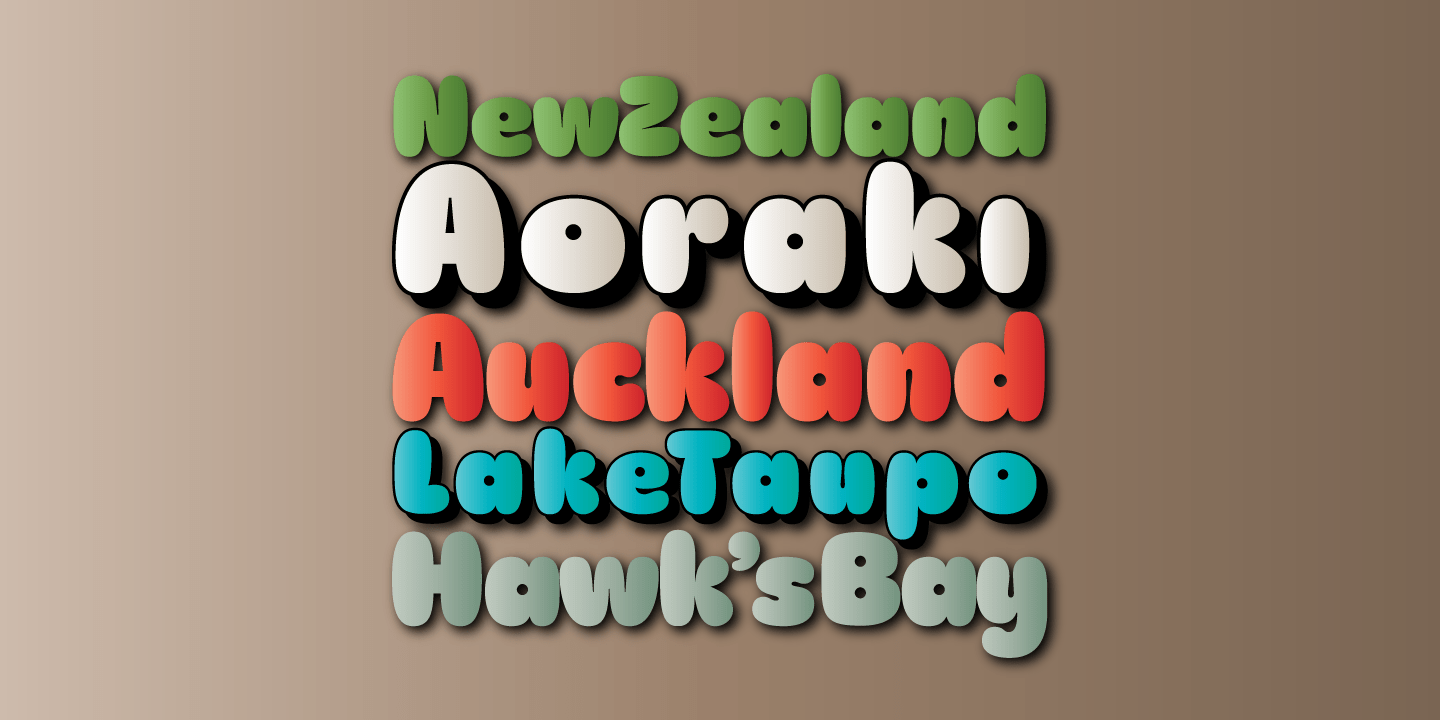
Churchward Marianna Shadow
Font Style by BluHead Studio
Churchward Marianna Shadow was designed by the late Joseph Churchward. The round, bulbous letter forms take on individual personalities of their own. This font can't wait to express humor, spunk and just plain bold fun and the drop shadow adds another dimension of fun!